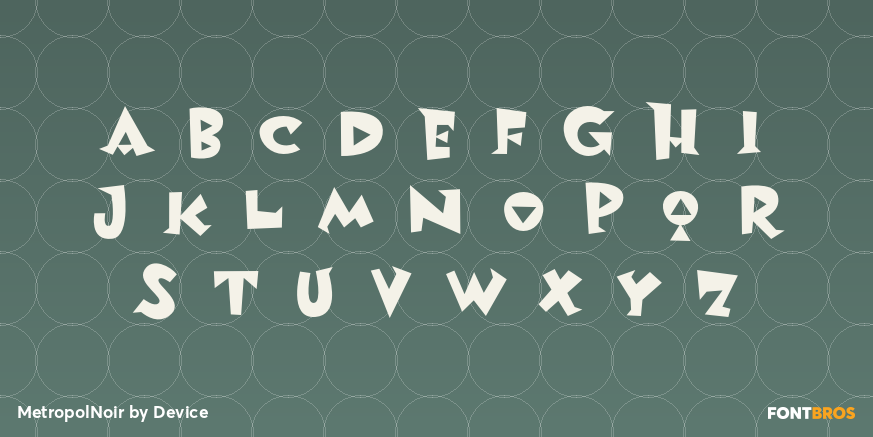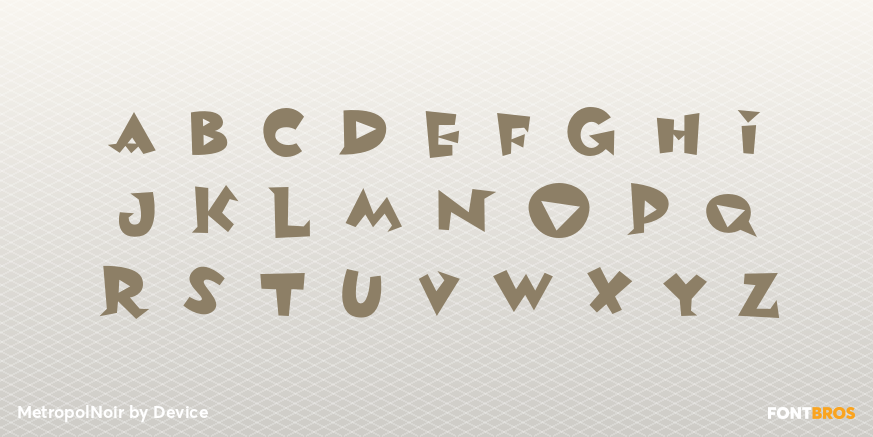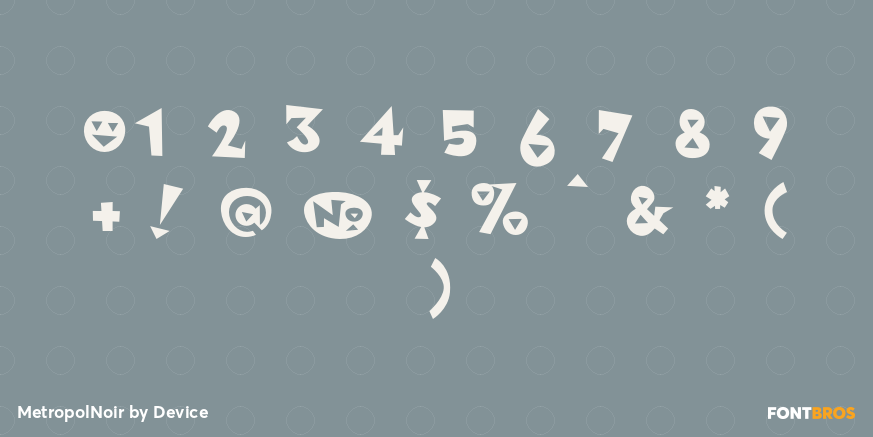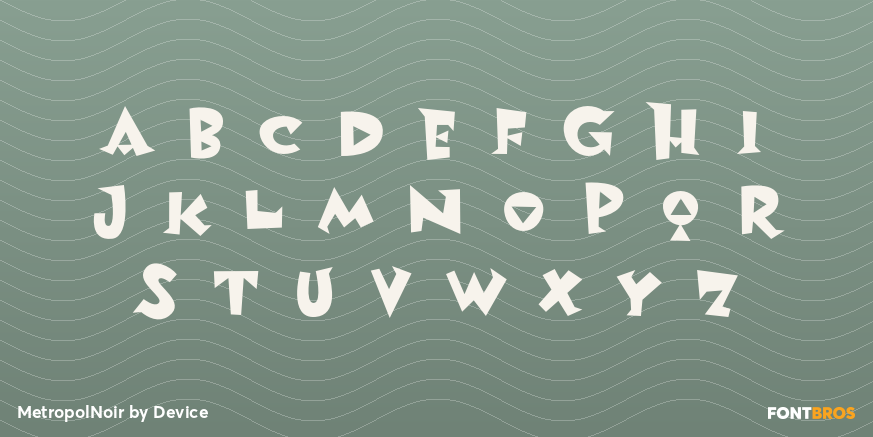
MetropolNoir
MetropolNoir is a playful display font with a distinctly offbeat, New Wave attitude. Its look feels rooted in 1980s visual culture, mixing a darkly stylish edge with a fun, wacky personality that stands out fast in large settings.
With its bold character and retro-flavored energy, it’s a strong fit for posters, album-inspired graphics, event pieces, expressive branding, and other decorative display work that needs instant personality. If you’re after something unconventional and graphic rather than neutral, this single-style design brings a memorable, era-charged voice.